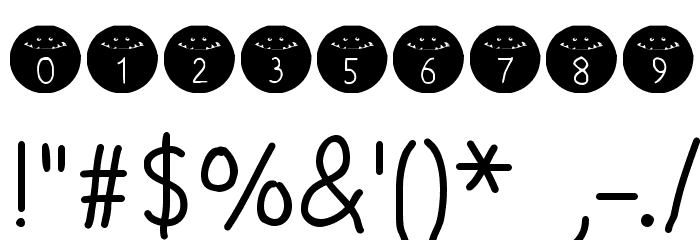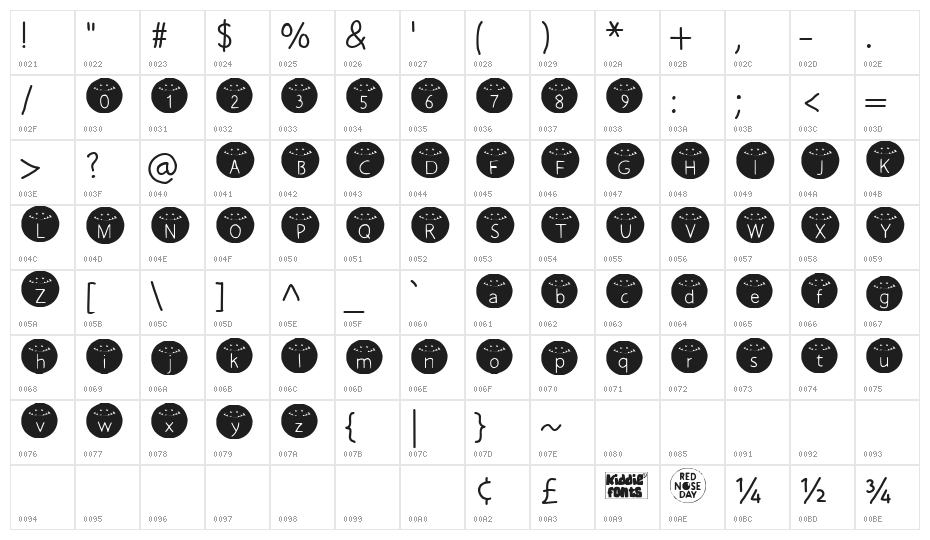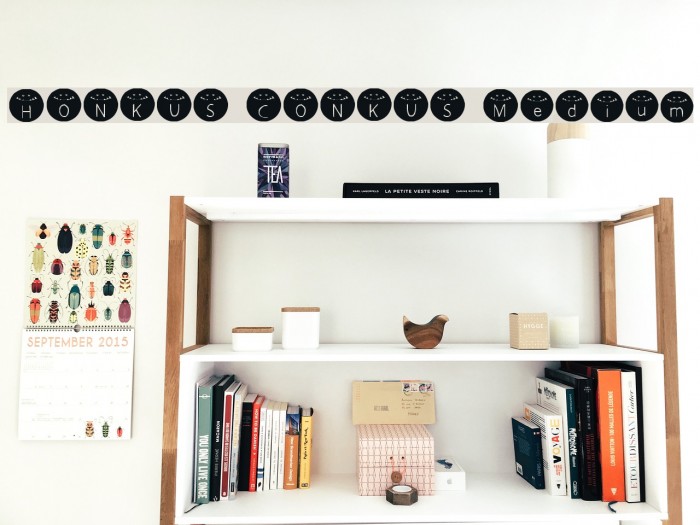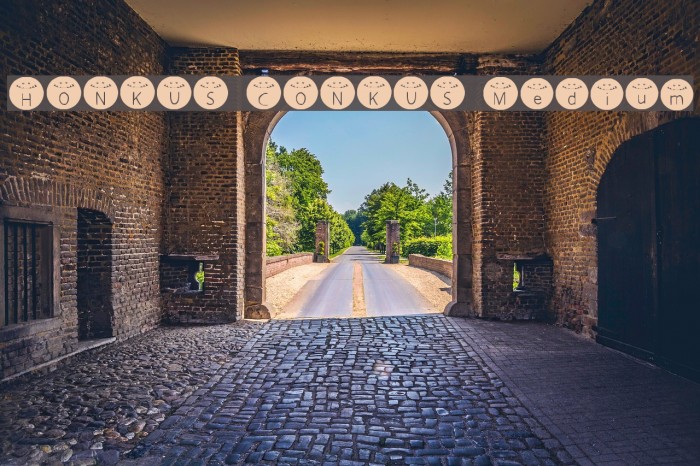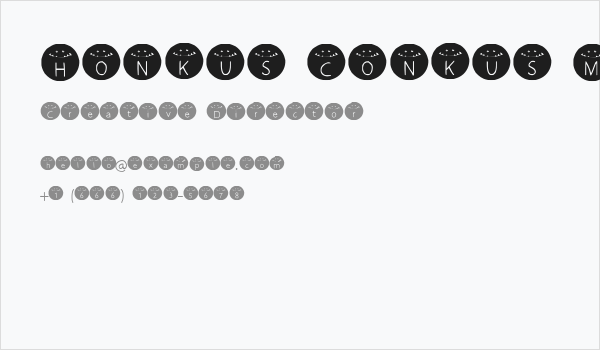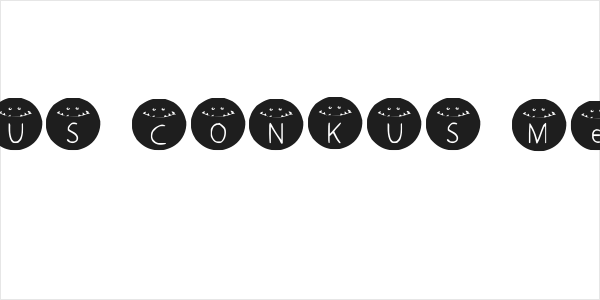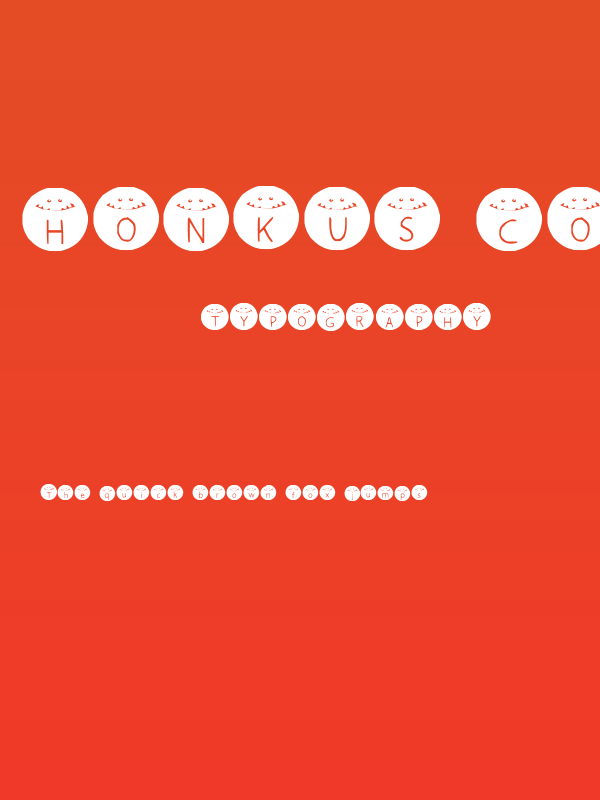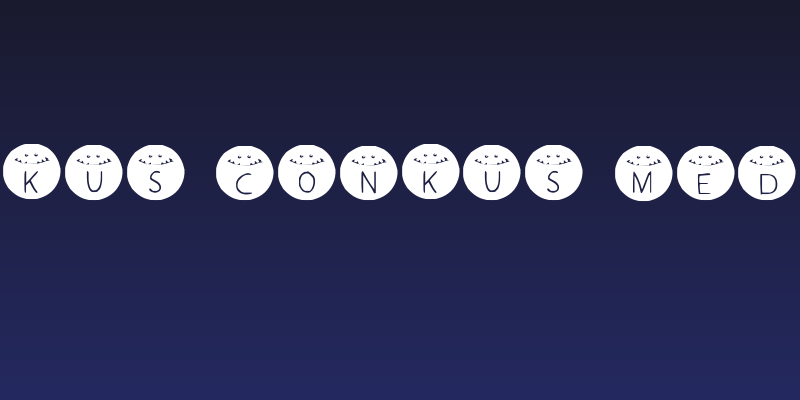
HONKUS CONKUS Medium Font
HONKUS CONKUS Medium Description
This playful and whimsical font features characters enclosed within circular shapes, giving it a unique and eye-catching appearance. The letters and numbers are neatly centered within these circles, creating a consistent and uniform look. The font has a modern and fun style, making it ideal for projects that require a touch of creativity and humor. The characters are well-defined with clean lines, ensuring readability despite the decorative elements. This font is perfect for children's books, playful branding, or any design that aims to convey a sense of joy and lightheartedness.
Overall StylePlayful, Modern
Use CaseLogos, Headlines, Decorative text
Proposed ProjectsChildren's books, playful branding, greeting cards, party invitations.